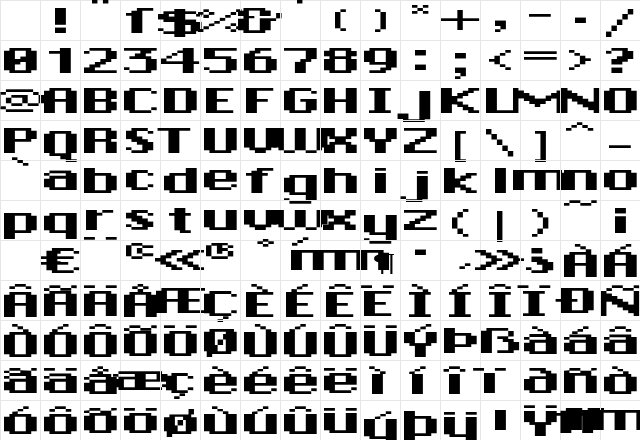
Complete DePixel BreitFett glyph index. Displaying only characters natively supported by DePixel BreitFett font.
DePixel is rooted in pixel-grid construction, making it a natural fit for game UI, retro computing aesthetics, and digital nostalgia projects.
Pro Tip: Use DePixel at sizes that align with its pixel grid for the sharpest rendering - scaling to non-integer multiples can introduce unwanted blur.